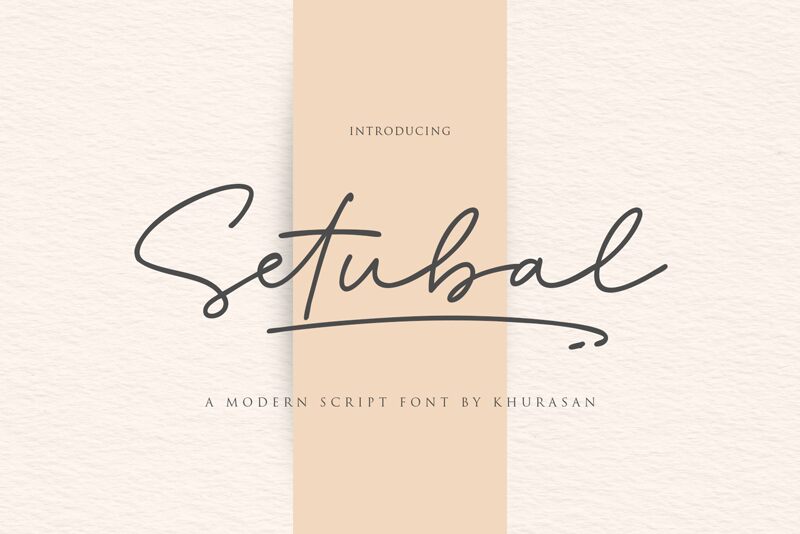
Setubal
Setubal font is a light handwritten font by Khurasan featuring casual and relaxed letter appearances. The typeface has a contemporary feel perfect for today’s applications in branding and personal projects. When used in digital media, its elegance and warmth are effectively conveyed.
The free handwritten font is suitable for product packaging, advertising posters, digital presentations, trademark designs, souvenirs, postcards designs, stamp badges or signages. Its soft appearance will look beautifully on social media too as well as many other casual uses where readability matters.